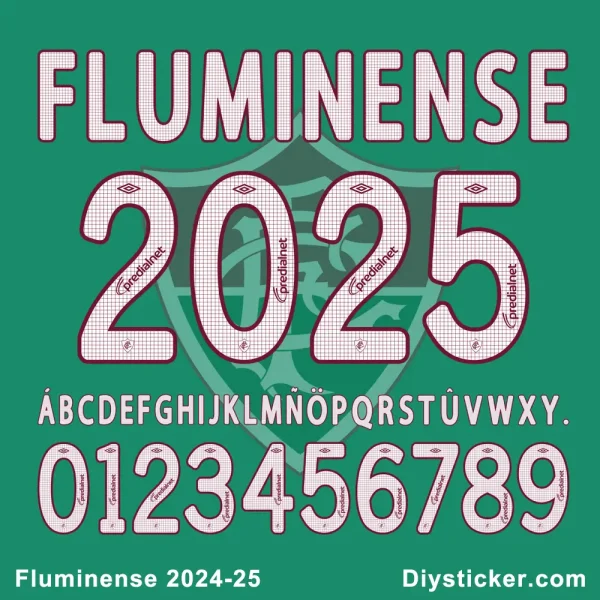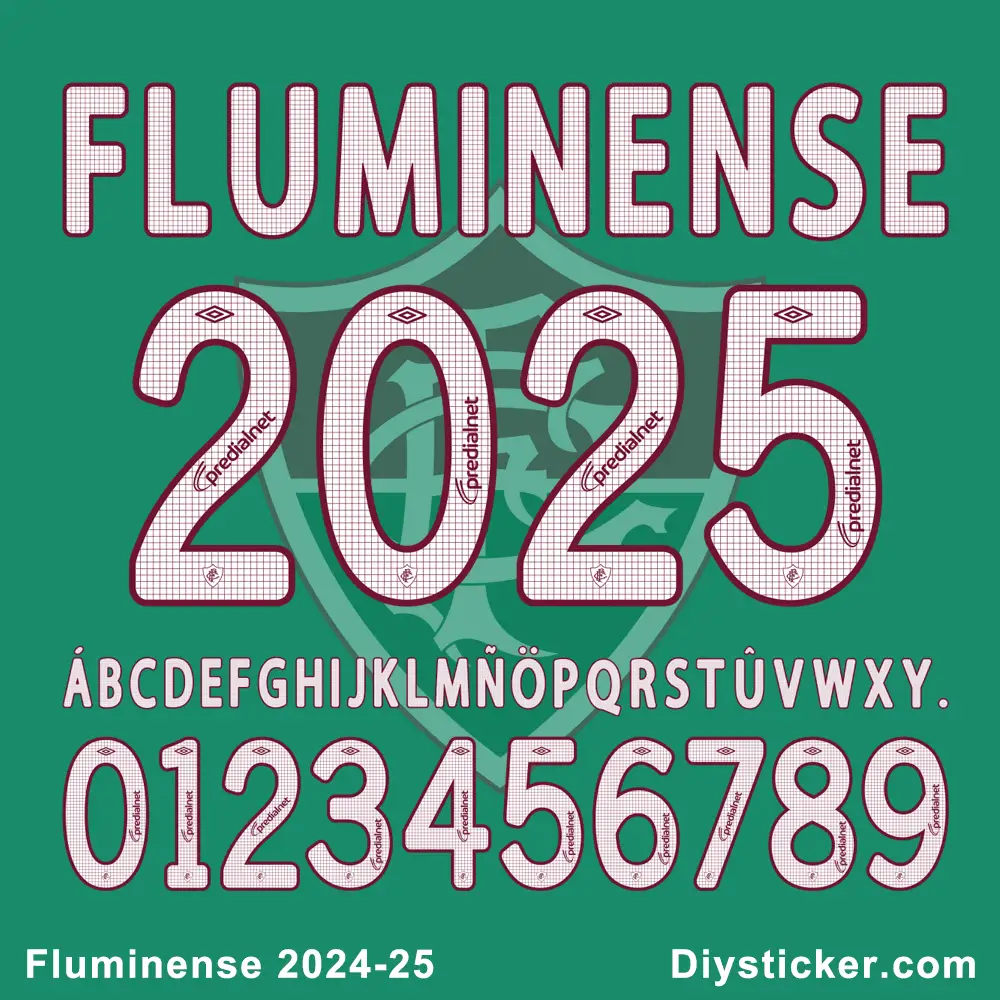
Bring the energy of Rio de Janeiro to your designs with the official Fluminense 2024-25 Font. This is the authentic typeface used by the legendary Brazilian club on its official kits, marketing materials, and communications for the current season.
Note: There is no mark on the number, no small hole/dot or any type of effect (truetype rule quality, it will crash the ttf file), so ttf only has normal font, details can be added through vector software editing.